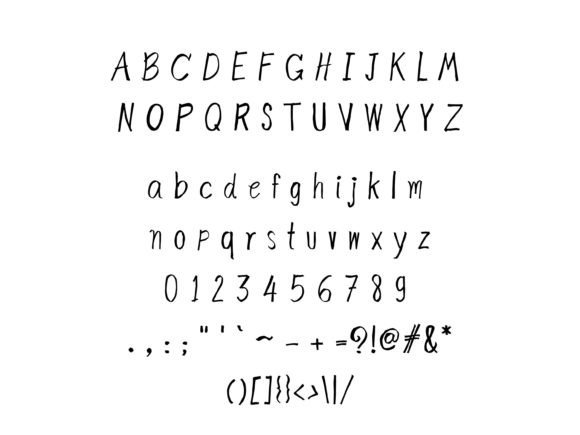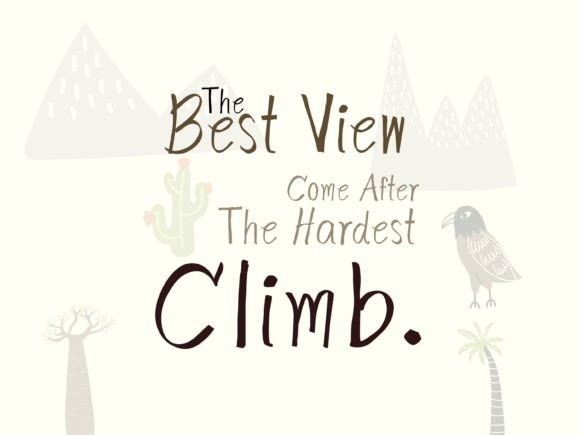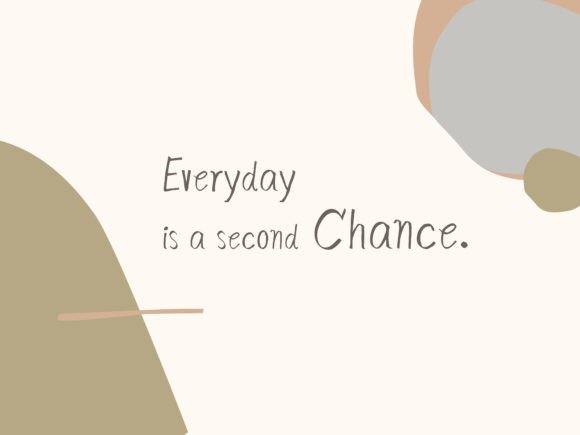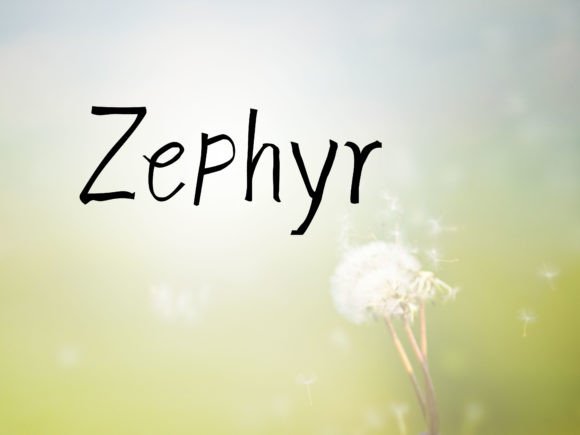
Zephyr Font
About Zephyr Font
**”Zephyr”** is a lightweight and relaxing handwritten font that exudes a gentle and friendly vibe, making it suitable for various design ideas. Crafters and graphic artists can both find value in this font, thanks to its versatile and soothing style.
The gentle and relaxed nature of **”Zephyr”** makes it a great choice for a variety of design projects. Its lightweight and approachable appearance adds a touch of friendliness and authenticity to your work.
For crafters, **”Zephyr”** can be a valuable addition to your toolkit. Whether you’re working on DIY projects, scrapbooking, or handmade goods, this font complements the creative and personal touch of crafting.
Graphic artists can use **”Zephyr”** to create designs that convey a sense of relaxation and approachability. Whether it’s for illustrations, digital art, or other creative endeavors, this font adds a unique and soothing element to your work.
Overall, **”Zephyr”** is a font that brings a gentle and friendly touch to a wide range of design ideas. Its versatility and relaxing aesthetics make it a valuable resource for crafters and graphic artists alike, allowing them to create designs that resonate with a sense of comfort and approachability.